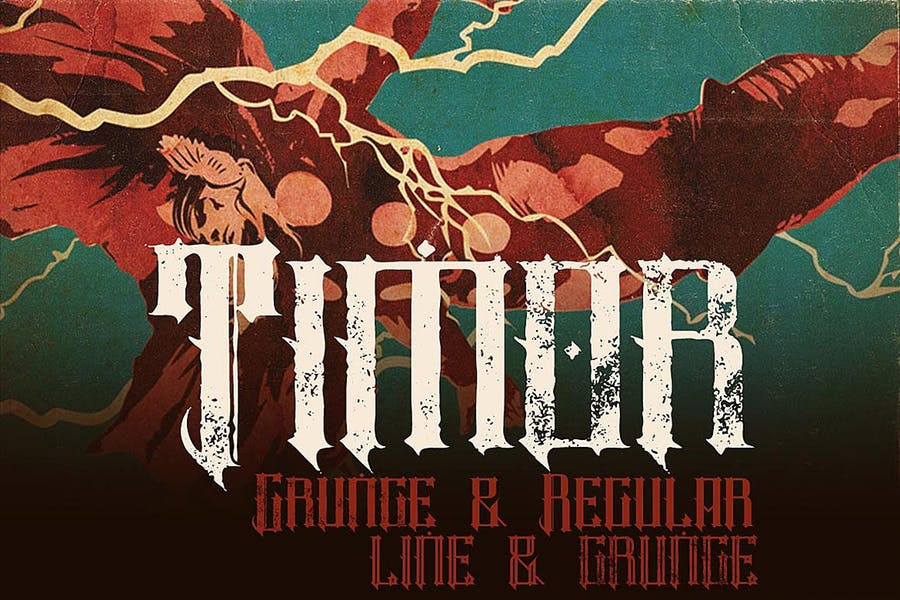
Timor - Vintage Style Font
Timor - Vintage Style Font is perfect for retro tropical branding, vintage island resort signage, colonial-era restaurant menus, heritage tourism materials, antique spice trade packaging, historical expedition logos, vintage travel poster design, cultural preservation projects, traditional craft branding, heritage museum displays, exotic vintage advertising, and nostalgic Southeast Asian storytelling.
Timor - Vintage Style Font is exciting because it captures the exotic mystique and colonial elegance of Southeast Asian trading ports with weathered letterforms that evoke images of ancient spice routes, tropical adventures, and the romantic allure of distant islands where cultures converged and history was written in exotic languages.
The Timor - Vintage Style Font family includes colonial variations: Regular, Bold, Light, Weathered, Distressed, and Aged styles, providing designers with a complete heritage typography toolkit to create authentic compositions that honor the rich cultural history and exotic appeal of Southeast Asian trading traditions.
Journey to exotic heritage with Timor - Vintage Style Font Free Download. This evocatively vintage typeface brings the mysterious charm and colonial elegance of Southeast Asian history to contemporary design projects. Whether you're creating heritage brand identities, designing cultural event materials, or developing exotic tourism campaigns, Timor - Vintage Style Font delivers authentic period character and tropical sophistication.
The font's atmospherically crafted letterforms reflect the weathered beauty and multicultural richness of ancient trading ports, with organic details and time-worn proportions that suggest sea salt, tropical humidity, and the passage of countless merchant vessels carrying precious cargo across exotic waters.
Timor - Vintage Style Font excels in creating memorable brand experiences for businesses celebrating cultural heritage, exotic travel, and artisanal traditions. Its evocative presence transforms ordinary communications into fascinating historical narratives that resonate with audiences seeking authentic cultural experiences and exotic adventure.
Professional designers appreciate how Timor - Vintage Style Font maintains authentic period character while providing exceptional functionality for modern heritage applications. The comprehensive style range ensures optimal performance from intimate artisan packaging to grand cultural exhibition displays, maintaining consistent exotic appeal and historical credibility.
This remarkable typeface brings instant cultural authenticity to heritage ventures and exotic-themed businesses. From spice importers to cultural museums, Timor - Vintage Style Font creates lasting impressions that communicate tradition, authenticity, and the enduring fascination with exotic cultures and distant shores.